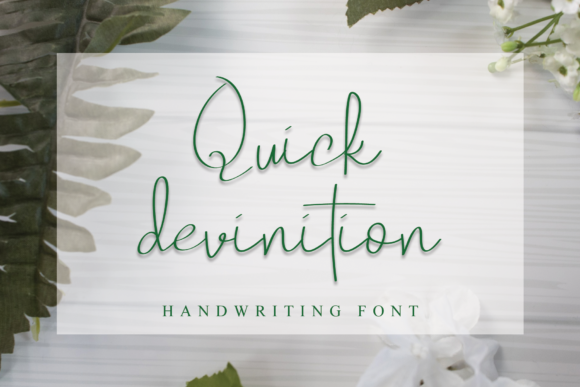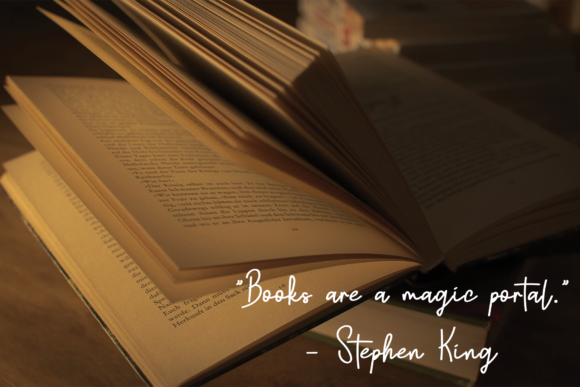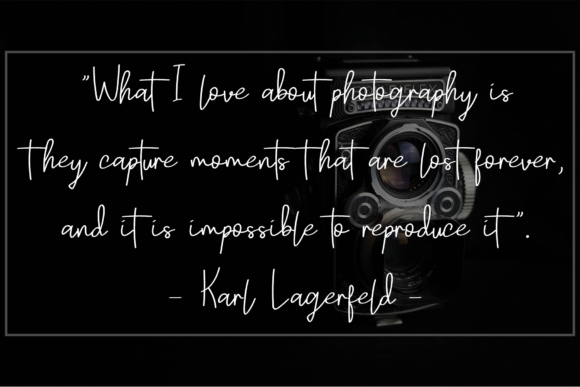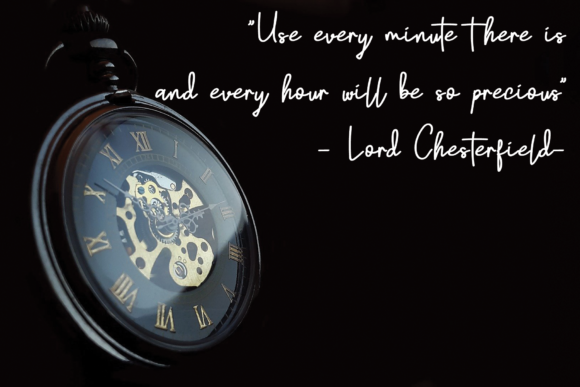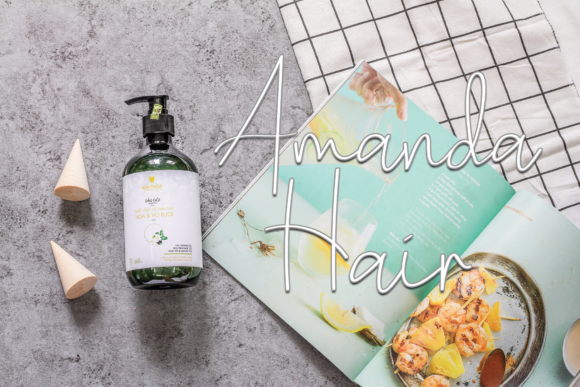
Quick Devinition Font
About Quick Devinition Font
Quick Devinition is a delicate, elegant and flowing handwritten font. It has beautiful and well balanced characters and as a result, it matches a wide pool of designs.